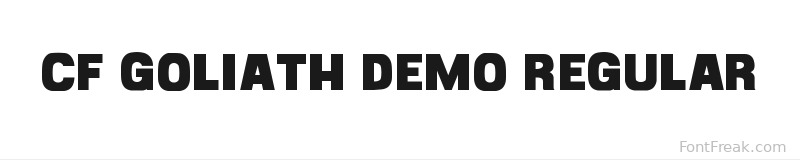
CF Goliath Demo Regular
CF Goliath Demo Regular is a striking display font that showcases a bold and contemporary design, ideal for capturing attention in various applications. As a font from Cloutierfontes, it embodies a sans-serif style that exudes strength and clarity, making it perfect for projects that require a modern touch. The font features a consistent stroke weight with minimal contrast, providing a sturdy and cohesive appearance. Its well-balanced letter spacing enhances legibility, allowing for easy reading even at larger sizes.
This versatile font is particularly well-suited for a range of creative uses. It can elevate the visual impact of movie posters, lending an air of excitement and drama. Additionally, its bold character makes it an excellent choice for restaurant menus, where it can help highlight key dishes and attract diners’ attention. Wedding invitations can also benefit from CF Goliath Demo Regular, as its modern yet elegant aesthetic sets a refined tone for special occasions. Small business branding and promotional materials will find this font equally advantageous, helping to establish a memorable identity in a competitive marketplace.
The target audience for this font includes graphic designers looking for unique typefaces, small business owners aiming to create eye-catching promotional content, and content creators seeking to enhance their visual storytelling.
What sets CF Goliath Demo Regular apart is its ability to blend strength and sophistication seamlessly. Its bold, modern design makes it a standout choice for anyone looking to make a lasting impression. Whether you’re designing for print or digital media, the CF Goliath Demo Regular font free download offers an excellent opportunity to infuse your projects with a fresh and contemporary feel. Embrace this font to elevate your creative endeavors.